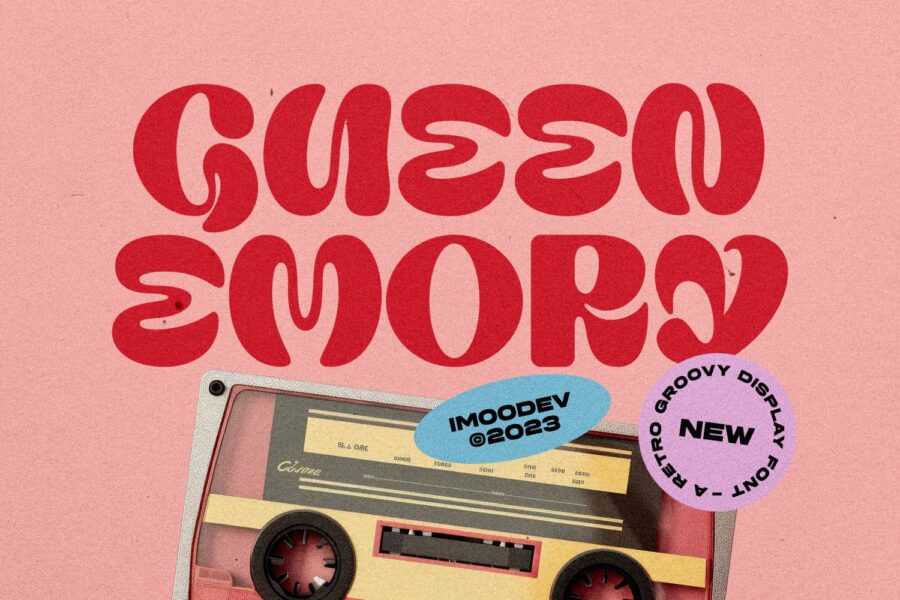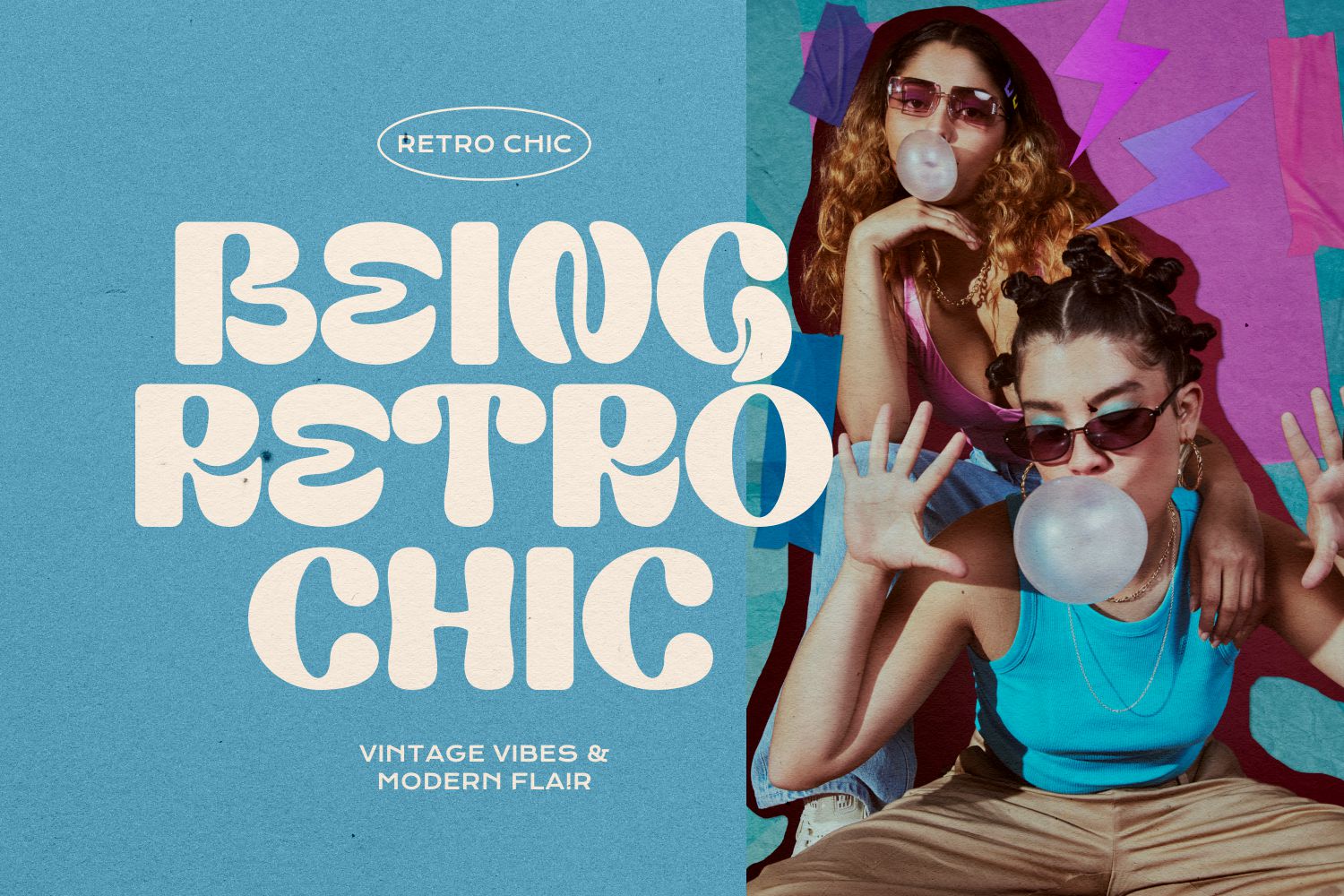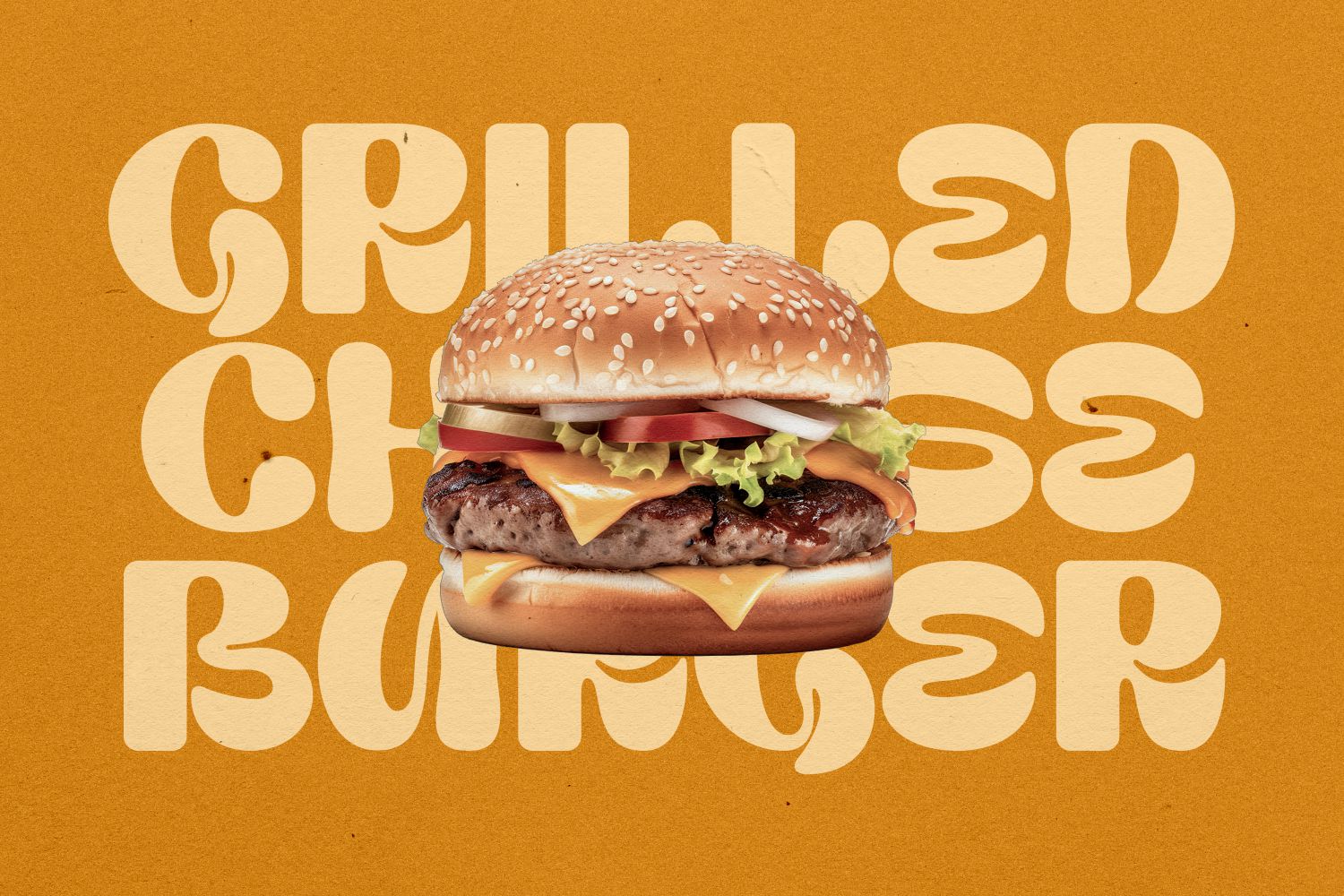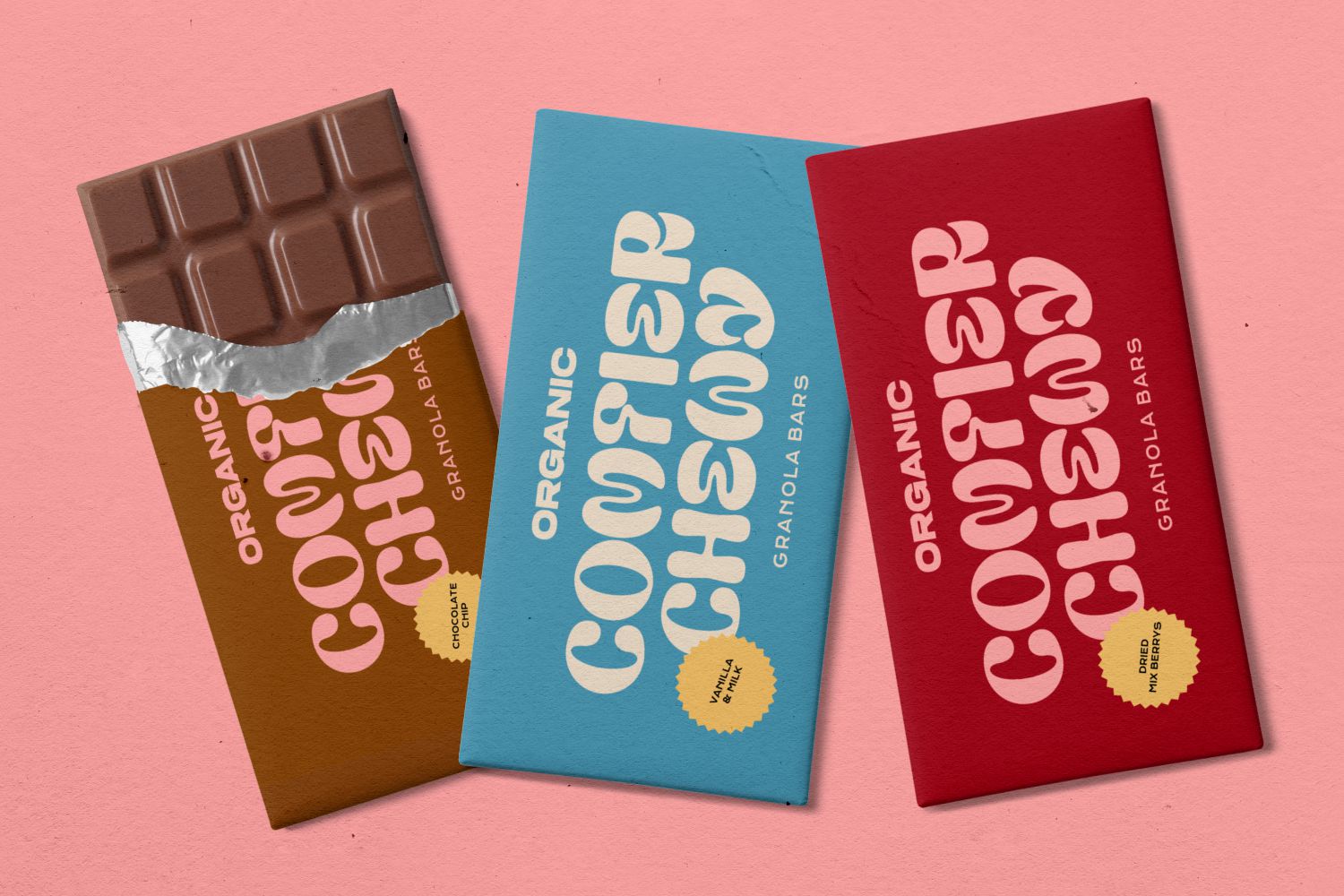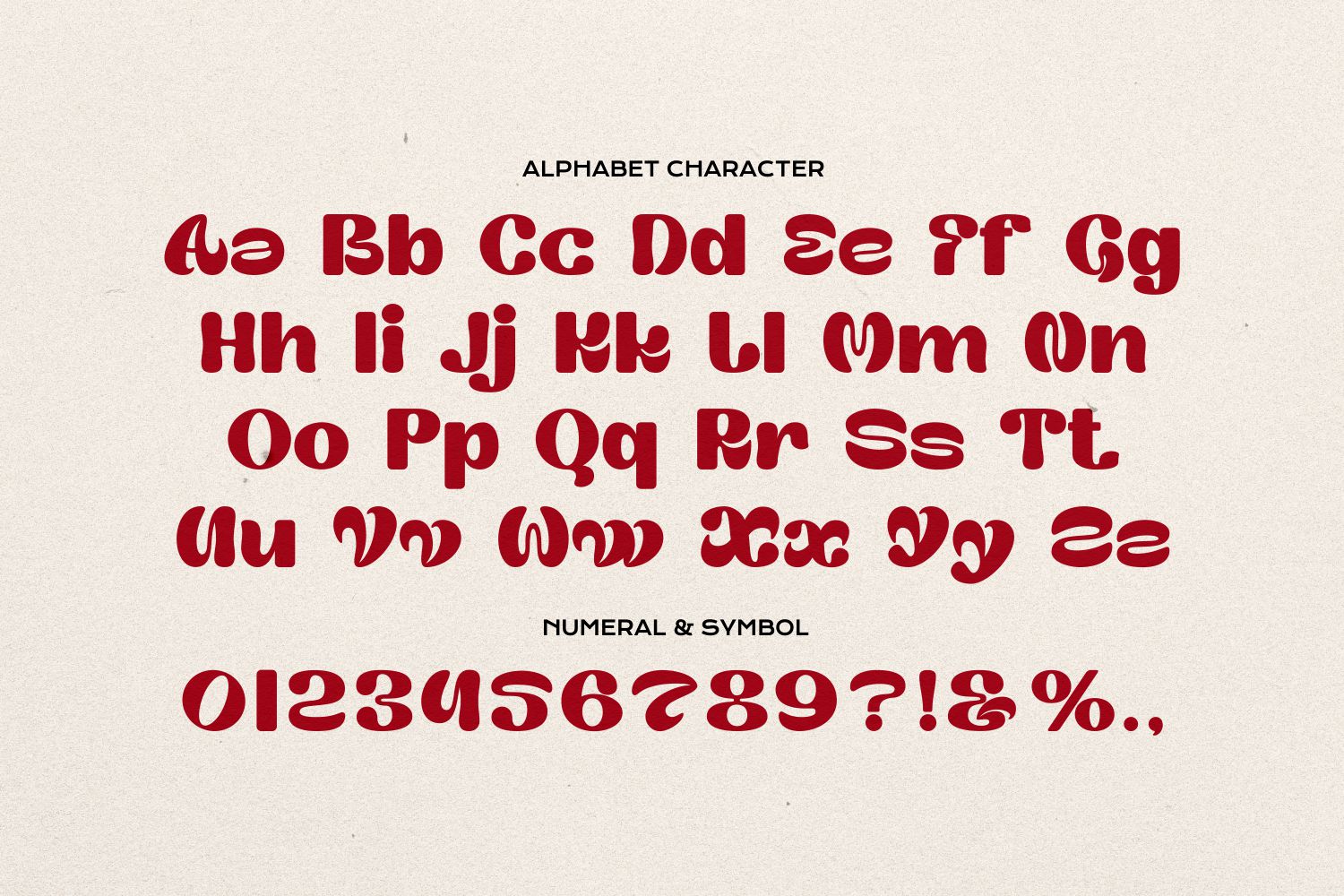
Gween Emory is a retro groovy display font that blends vintage charm with bold, modern style. Its chunky, flowing letterforms and playful curves capture the vibrant spirit of the ’60s and ’70s, making it ideal for projects that radiate fun, nostalgia, and personality. Every character is meticulously crafted to deliver a strong visual impact, ensuring your headlines, branding, and packaging grab attention instantly.
Versatile and visually striking, Gween Emory is perfect for retro posters, food & beverage branding, music album covers, apparel prints, and lifestyle products. It includes uppercase, lowercase, numerals, and symbols, giving you full creative flexibility. Whether you’re aiming for a funky retro vibe or adding a quirky twist to modern designs, this font will infuse your visuals with timeless groove and unique flair.